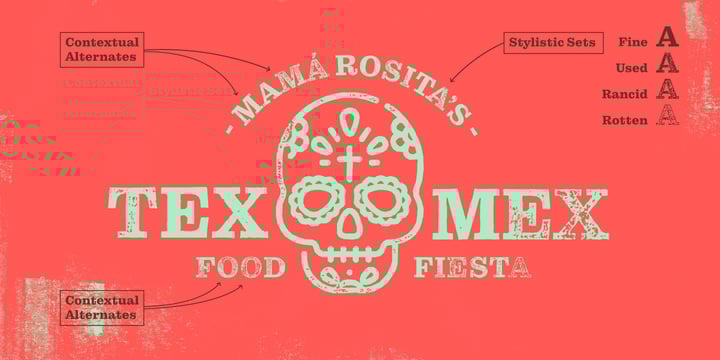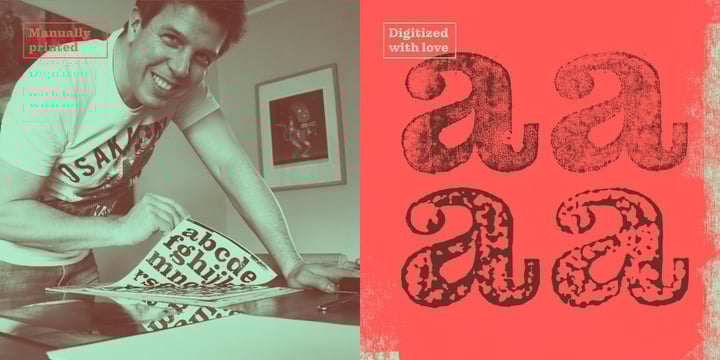
Kontiki
by Floodfonts
The Kontiki Font Family was designed by Felix Braden and published by Floodfonts. Kontiki contains 4 styles and family package options. More about this family
All customers of Kontiki Pro get all single styles for free! Kontiki digitally simulates a handmade woodprint and offers four different qualities of print for each of the 560 characters. To create the Kontiki fonts, 193 glyphs were manually cut into five wooden plates and carefully printed by hand. From countless test prints, the most charming four were selected and digitized. Kontiki offers a designer the possibility to create a printed image that is very close to a traditional woodprint, but is less expensive to produce an easier to correct. As the warmth of manually printed matter has become a sign of quality and good taste, Kontiki is quite useful for packaging, editorial and corporate design. If you would like to read more about the Typeface please visit our promo site. http://floodfonts.com/Kontiki
Designers: Felix Braden
Foundry: Floodfonts